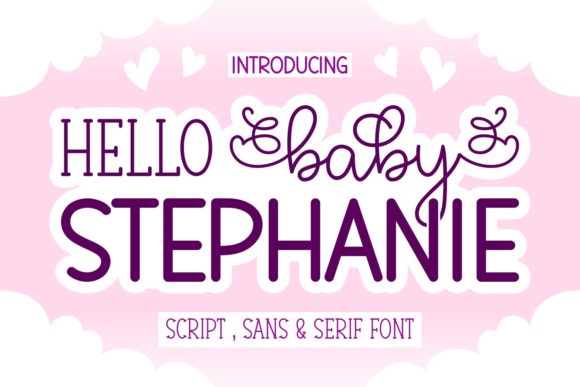
Introduce yourself to Hello Baby Stephanie, the enchanting script font family that will capture your heart with its exquisite beauty and versatility. This carefully designed trio, comprising a sans serif, serif, and handwritten font, offers an unparalleled level of sophistication and charm.
Each letterform in Hello Baby Stephanie is a work of art, meticulously crafted to deliver a sense of elegance and playfulness. Its delicate strokes and flowing curves evoke the natural fluidity of handwritten notes, adding a personal touch to your designs. Whether you're creating wedding invitations, greeting cards, branding materials, or social media posts, Hello Baby Stephanie will elevate your projects to new heights.
Express your creativity with the handwritten font, perfect for adding a touch of whimsy and charm to your designs. Unleash your imagination and let your words dance across the page with a style that is both endearing and unforgettable. Whether you're crafting heartfelt letters, designing playful posters, or creating unique logos, Hello Baby Stephanie will bring your vision to life.
With Hello Baby Stephanie's PUA encoding, you have the power to effortlessly access all glyphs and swashes, expanding your creative possibilities and ensuring that your designs stand out from the crowd. Embark on a journey of boundless creativity, where every project becomes a masterpiece.
Hello Baby Stephanie is more than just a font; it's an invitation to express yourself authentically and make a lasting impression. Its timeless allure will captivate your audience, leaving them enchanted by your creations. Embrace the beauty of Hello Baby Stephanie and unlock the limitless potential of your imagination.